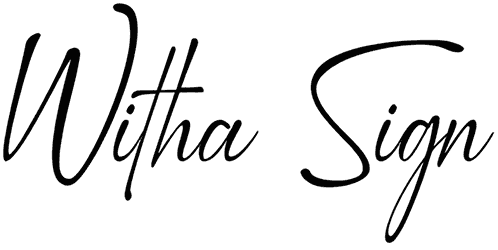
Witha Sign Font
Meet Witha Sign, a signature-style signature font with a subtle, minimal display. It supports a complete set of beautiful characters and gives a modern, dapper touch. This font is uniquely created to help you improve your design in the best way, using it for greeting cards, decorative quotes, posters, photo overlays, branding materials, and enjoying the outcome.